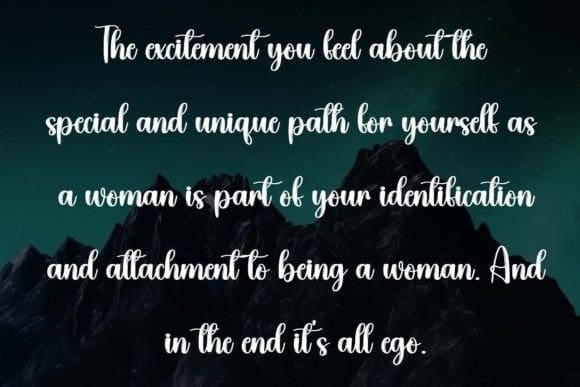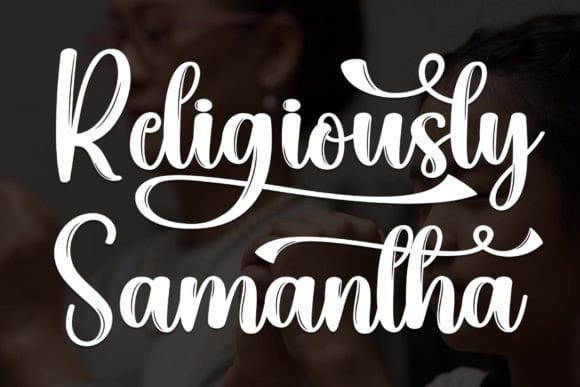
Religiously Samanta Font
Religiously Samanta Font is a sweet and friendly handwritten font. Its natural and unique style makes it incredibly fitting to a large pool of designs. The only limit is your imagination!